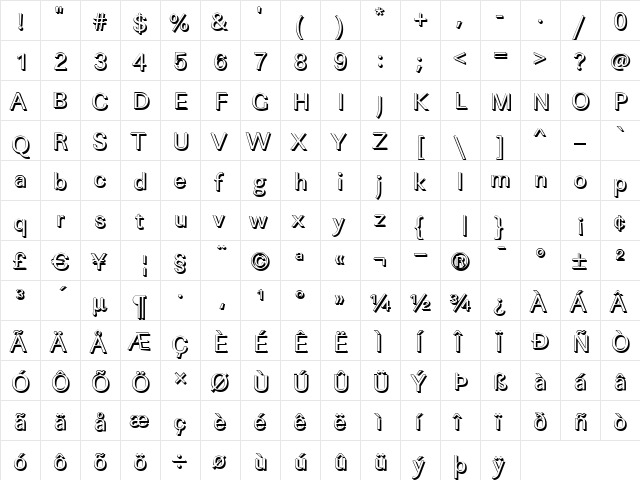
LinearSh Regular Font Preview
LinearSh Regular
LinearSh Regular Font Details
Design Context for LinearSh Typeface
LinearSh takes a measured approach to typography — its balanced proportions and neutral character make it a reliable workhorse for both digital and print work.